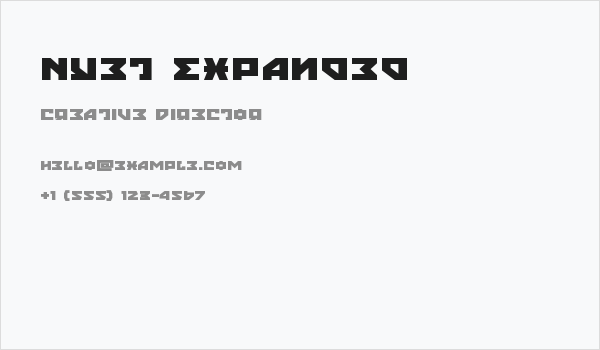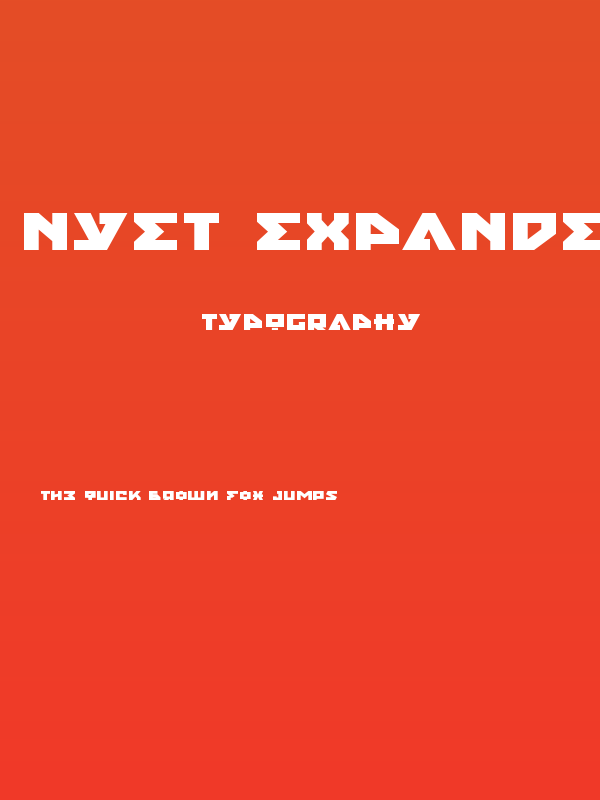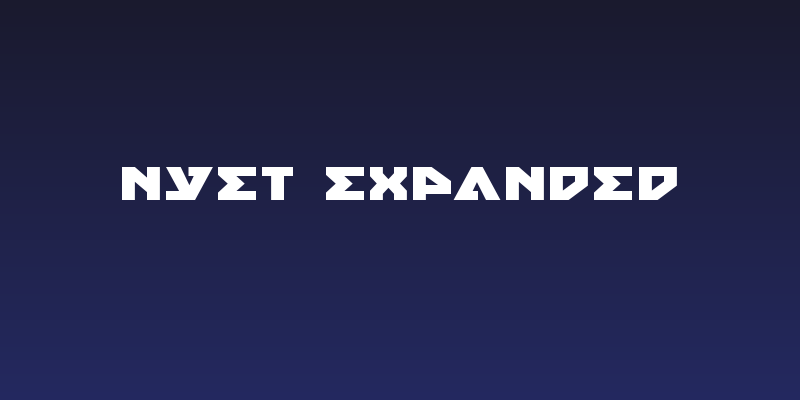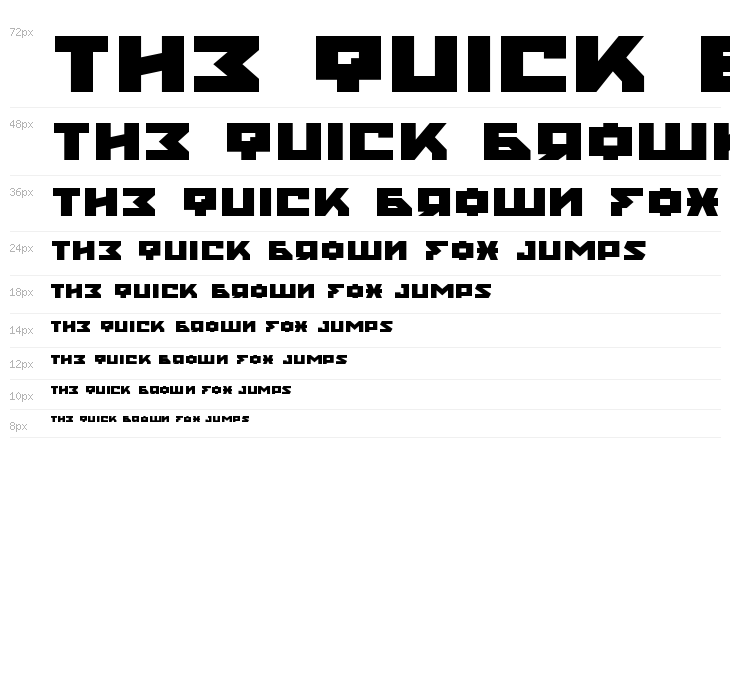
Nyet Expanded Font
Nyet Expanded Description
This font features a bold, geometric design with sharp angles and a futuristic aesthetic. The characters are constructed with a blocky, angular style that gives them a strong, impactful presence. The uppercase and lowercase letters maintain a consistent width, contributing to a uniform appearance. The numerals and special characters follow the same design principles, ensuring cohesion across all elements. This font's distinct style makes it suitable for attention-grabbing designs where a modern and edgy look is desired.
| Proposed Projects | Ideal for branding, posters, video game graphics, and sci-fi themed projects. |